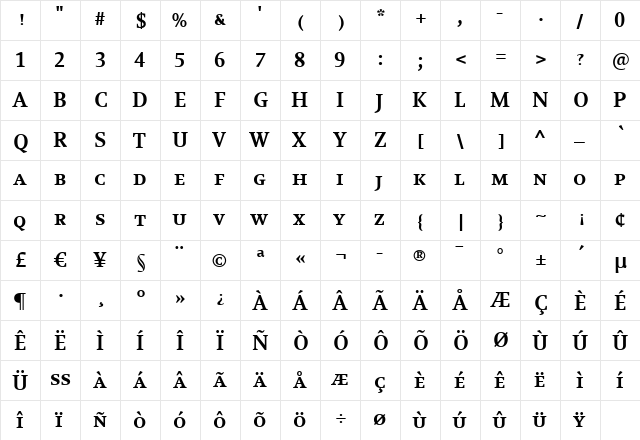
EnigmaSC Regular
Design Context for EnigmaSC Typeface
EnigmaSC is a composed and adaptable typeface that performs quietly and consistently across a wide range of design contexts.